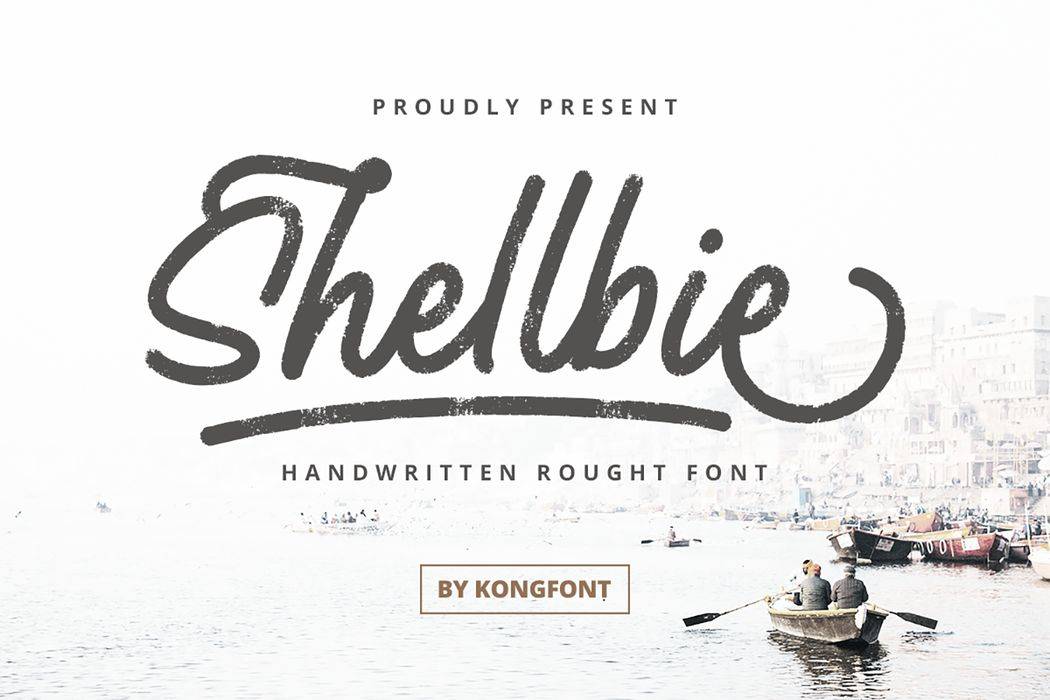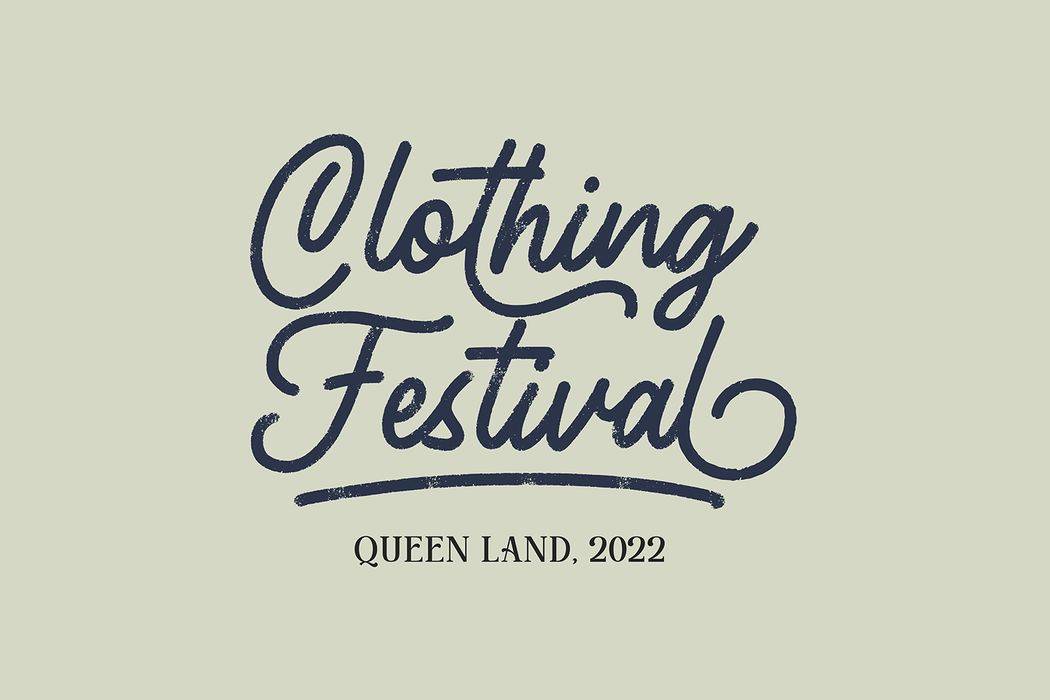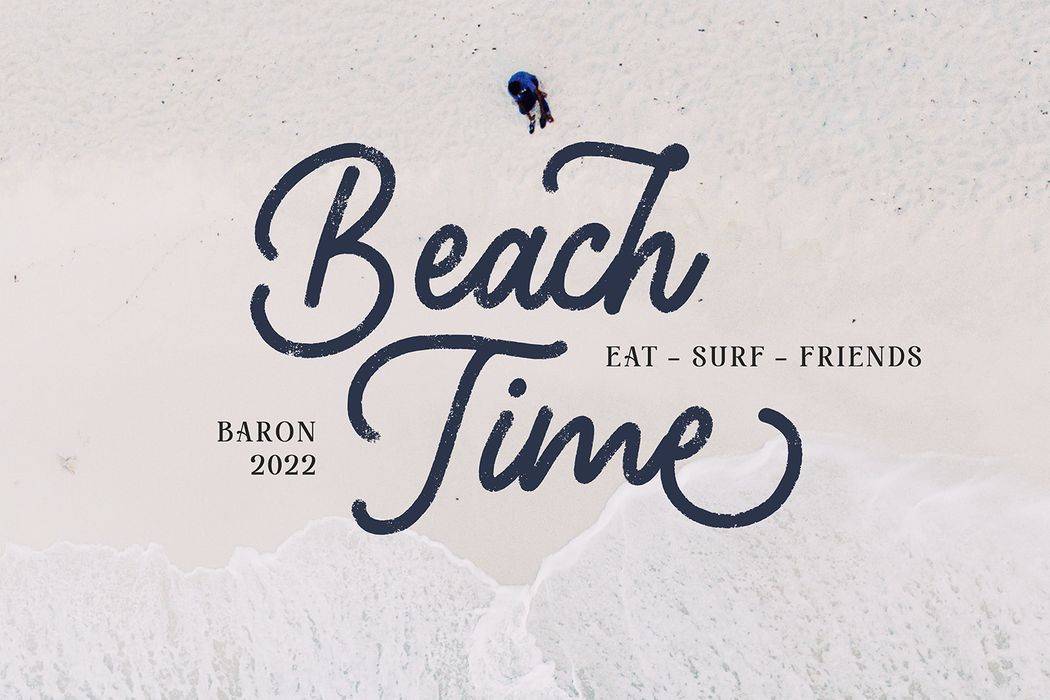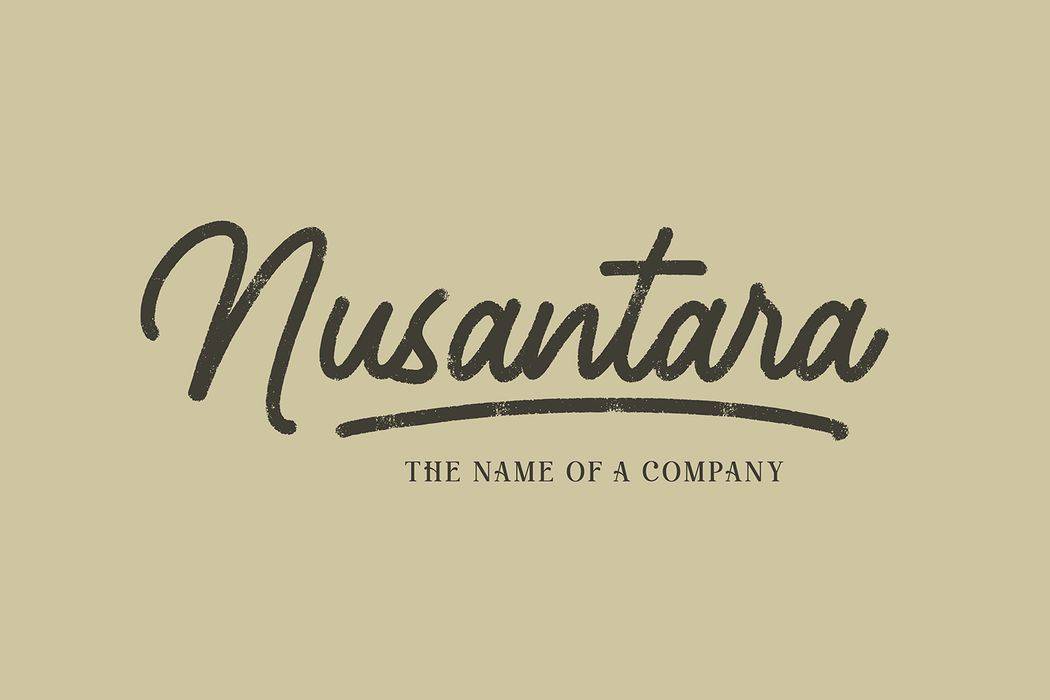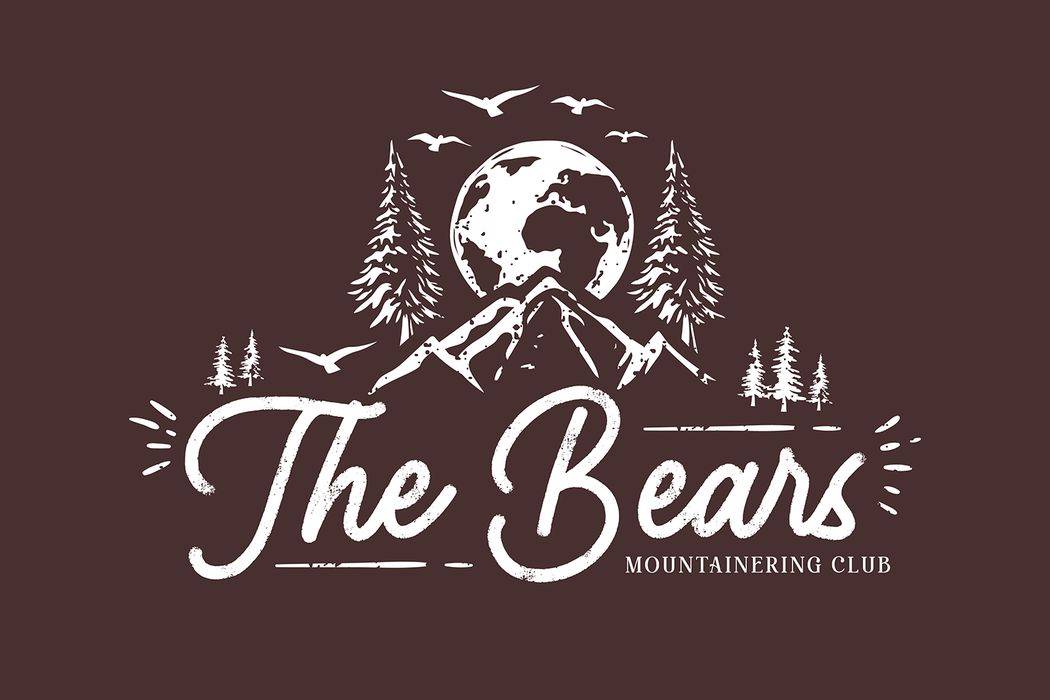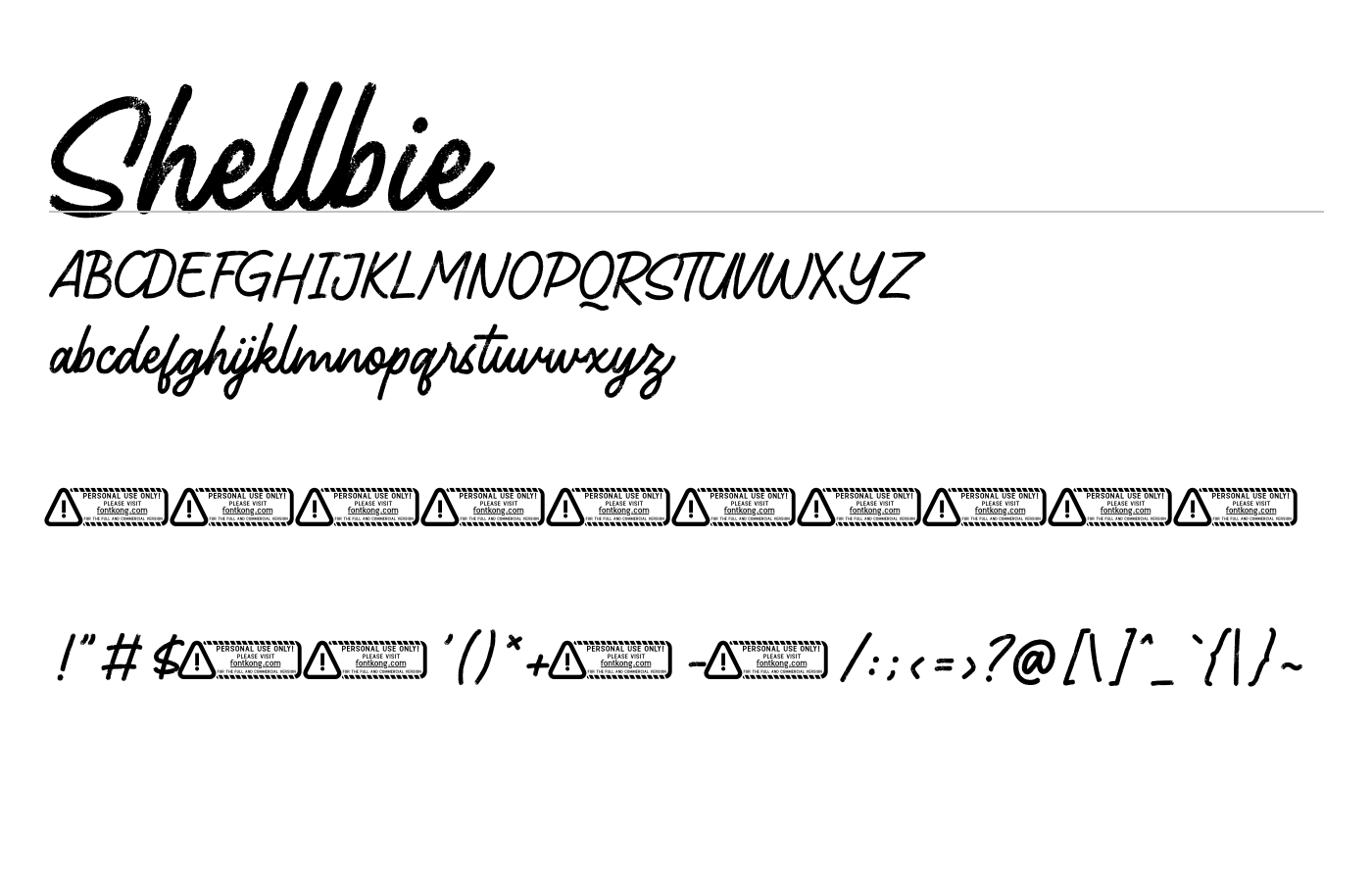
Shellbie is a casual, handwritten script font with a lively and personal touch, featuring smooth, flowing strokes and a slightly textured finish that adds character. Its slender, upright letterforms convey friendliness and approachability, making it ideal for creative branding, invitations, and informal headlines where a warm, human feel is desired.
Shellbie Font
About Shellbie Font